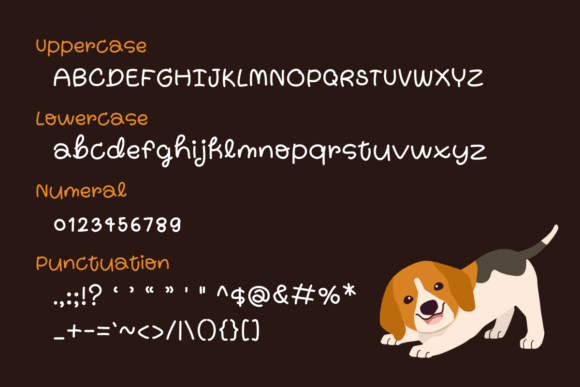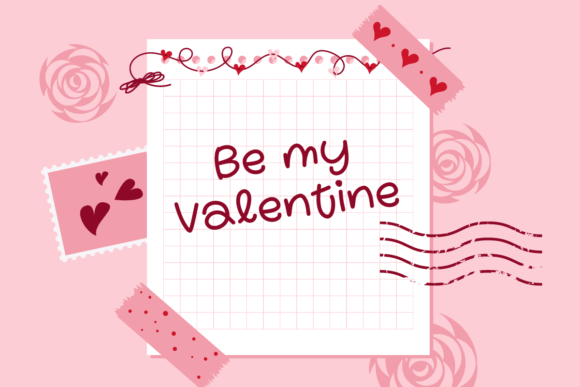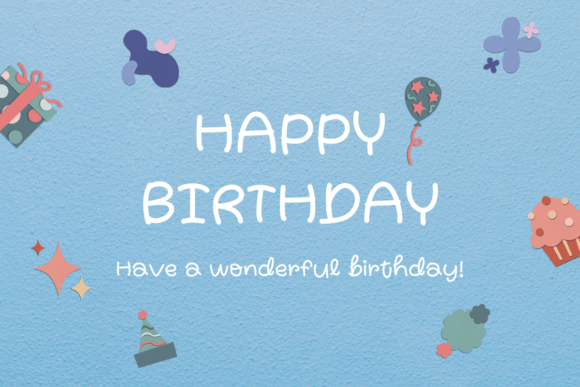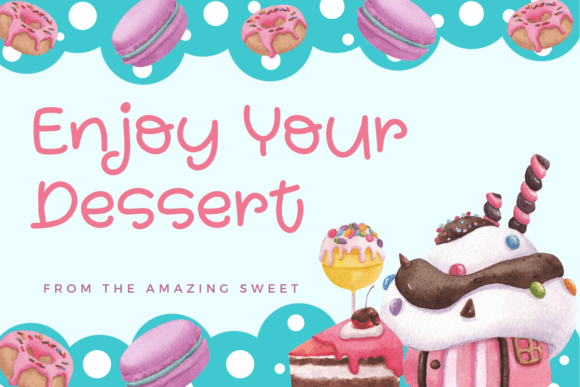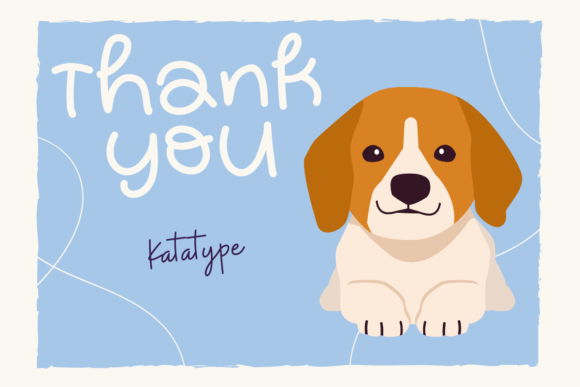
Introduction to Jolly Beagle Font
Do you remember that moment when you finally found the perfect font for your creative project? The one that made your design pop, and your audience smile? For designers, that ‘aha’ moment is priceless. And, if you’re on the hunt for a font that adds a playful twist to your work, look no further than the Jolly Beagle Font.
This charming handwritten font is a design treasure trove, waiting to bring joy and personality to your designs. Whether you’re crafting posters, invitations, or social media graphics, the Jolly Beagle Font is a valuable addition to your design resource library. With its high-quality, transparent background, and compatibility with popular design software like Canva, this free download is a must-have for any creative project.
Key Features of Jolly Beagle Font
- Unique, playful design ideal for creative projects and illustrations, such as children’s books, greeting cards, and advertisements.
- High-quality design resource with a large character set, including uppercase and lowercase letters, numbers, and punctuation marks.
- Perfect for designers looking for a fun, whimsical font to add a personal touch to their creative projects, from digital art to print materials.
Honest Review: Jolly Beagle Font
I recently had the chance to work with the Jolly Beagle Font, and I must say it’s been a delightful experience. As a designer, I’m always on the lookout for high-quality design resources that can elevate my creative projects.
- Only available in a limited number of font styles (⚠️)
Overall, I’m impressed with the Jolly Beagle Font. It’s a great addition to any designer’s toolkit, and I’d definitely recommend it for personal or small-scale projects. With its high-quality design and transparent background, it’s a design resource that’s hard to pass up. ✨
Tips for Getting the Most Out of the Jolly Beagle Font
Experiment with different font sizes, colors, and combinations to add visual interest to your designs.
The Jolly Beagle Font is perfect for adding a touch of whimsy to invitations, social media graphics, and other creative projects.